Batsnoda is a modern and bold display font. It can be used for a variety of designs related to speed or sports. Use this font for your designs and explore its endless possibilities.
Inspired by old style technology, vintage technos comes to make your project perfect. Vintage Technos will take your upcoming projects to the next level! Use it to add that special retro touch to any design idea you can think of!
Katrite | Modern Script Font with a calligraphy style, So beautiful on invitation like greeting cards, branding materials, business cards, quotes, posters, and more!
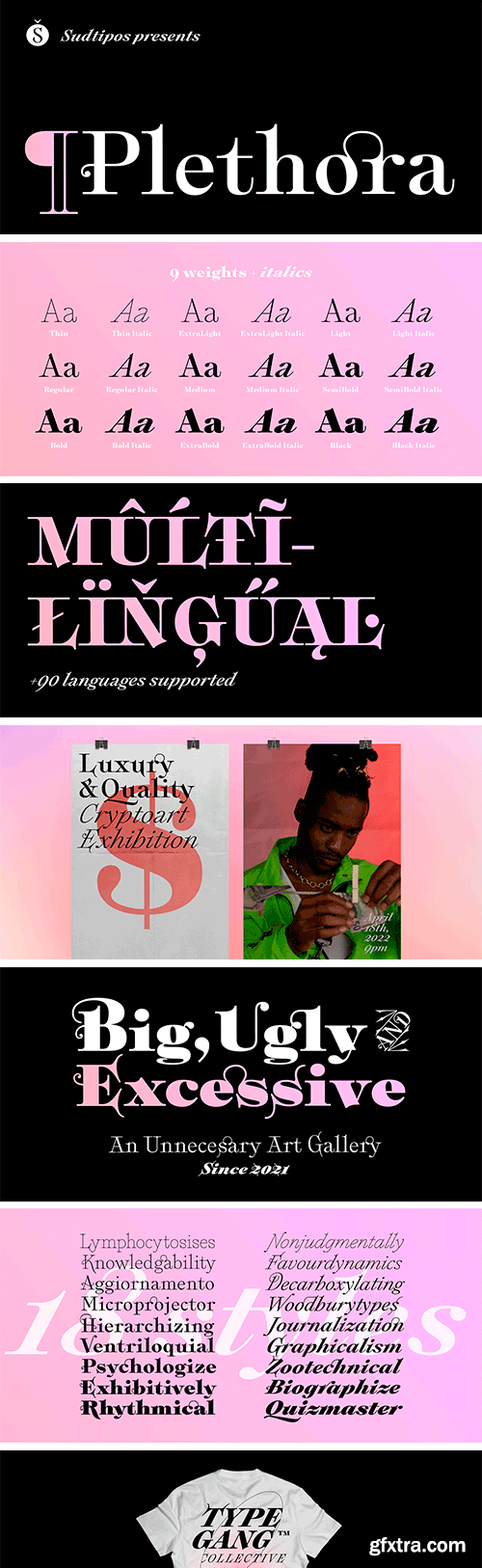
A few years ago I've discovered the work of one of the most prolific typeface designers of the Bruce type Foundry in NYC during late nineteenth century. Browsing Julius Herriet's work I found a very unique kind of ligatures in his patented "Old Style Ornamented" type design. Some letters were designed with a little top tail that allowed them to connect to each other. After that, I found that he also designed a single italic weight of the same font 7 years later.
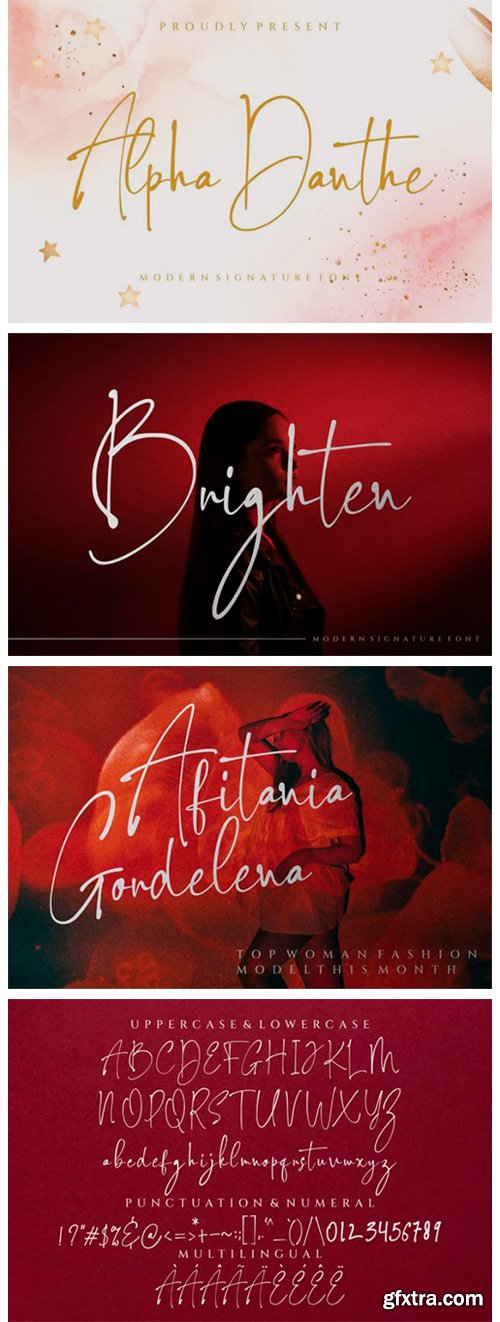
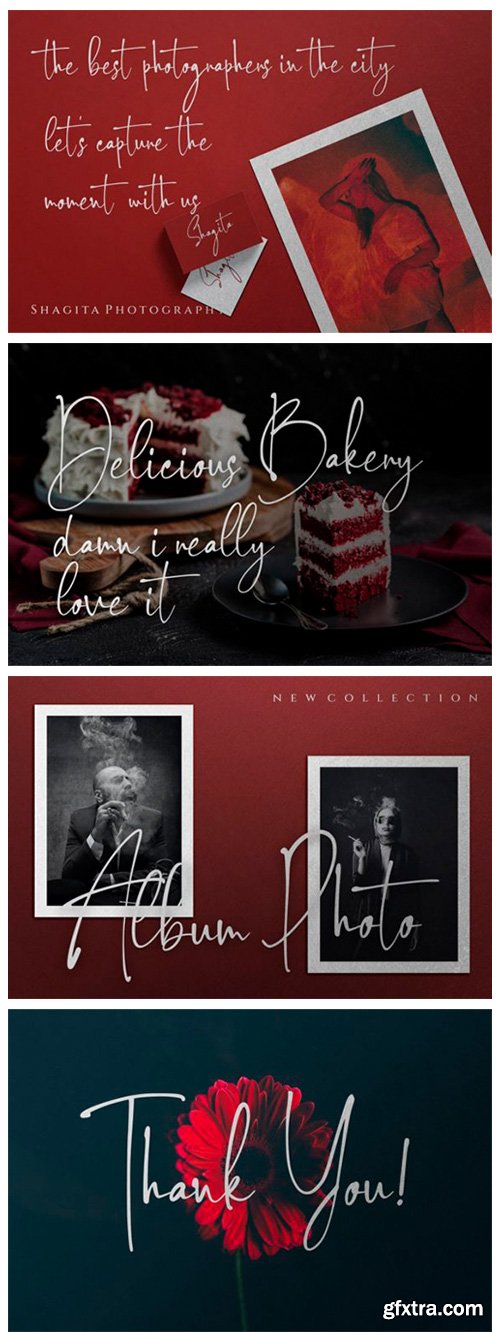
Alpha Danthe Font
Alpha Danthe is a chic, refined script font that emanates sophistication and elegance. Its stylish alternates and ligatures make this font the perfect match for any project.
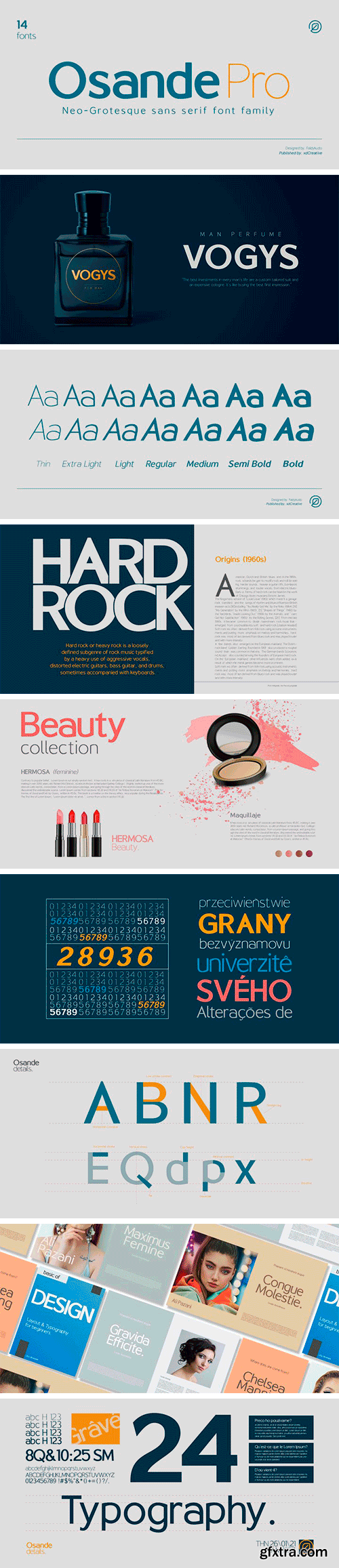
Osande is a modern sans serif font with neo-Grotesque touch, more homogenous forms with minimal stroke contrast. Osande the font family contains 3 basic forms: italics, obliques, and upright. Each of which has 7 different weights ( Thin, Extra Light, Light, Regular, Medium, Semibold, and Bold ). Osande can easily be matched to an incredibly large set of projects, so add it to your creative ideas and notice how it makes them stand out!
Michelin Font
Michelin is a beautiful and delicate script font. It has a classy and modern look, which can be used for logos, branding, invitations, stationary, wedding designs, social media posts and any other design that requires a personalized touch. Michelin is PUA encoded, which means that you can access all glyphs and swashes with ease.
Capricho is a warm, comfy, and pleasantly readable typeface. It unites the virtues of a 17th century transitional typeface with its own distinctive and individual flavour. Its large descenders and ascenders make for a distinguished appearance. The complementary Italics with its gently flowing ductus is the contrasting counterpoint.
Sunwira Font
Sunwira is a lovely, classic and well balanced script font. It can be used for various creations that require a delicate, personalized touch. Sunwira is PUA encoded, which means that you can access all glyphs and swashes with ease!
Nineties Display Font
Nineties - Display Font A display font inspired by the nineties, our favorite decade. A modern font that is both memorable and stylish. This font is suitable for use in many design forms, for example sci-fi scenes, retro gaming, magazines, postcards, logos, DIY Projects, invitation card, quotes and much more.
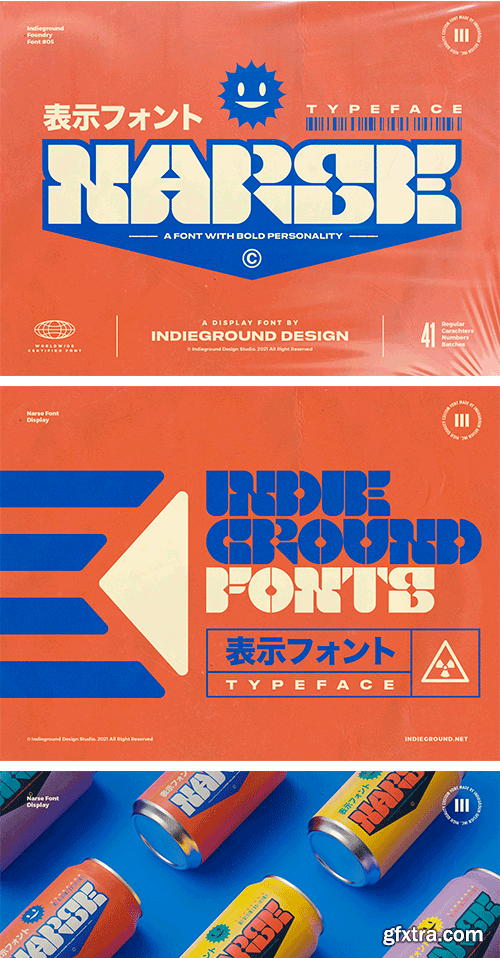
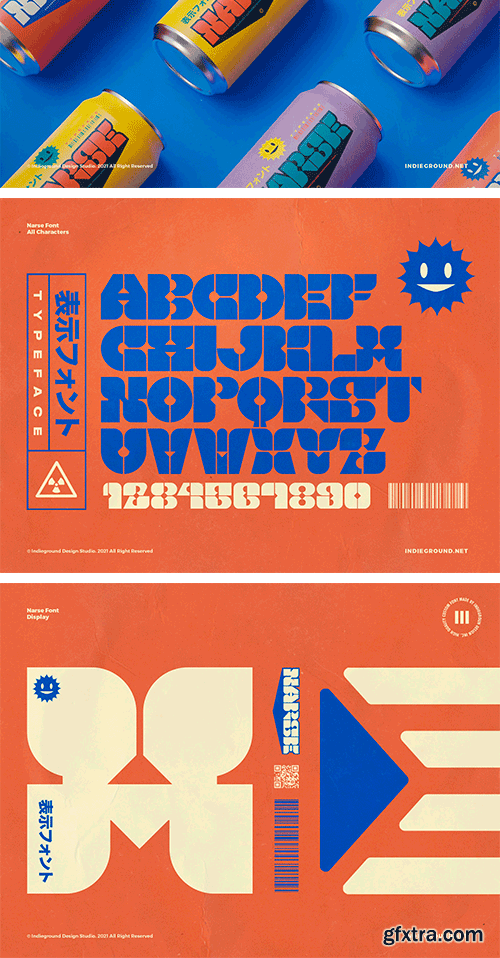
Narse Font
Narse Font by Indieground This unique display font based on a square module, made by the Indieground Team, gives a classic mood with modern styling and boldness to the typography of your artworks. It's inspired by a mix of 70’s Jazz cover-art and contemporary lettering.
Emipon Font
Emipon is a simple and sharp looking display font, that will truly inspire your works. Use this font for your designs and explore its endless possibilities.
Qiyamu Ramadhan Font
Qiyamu Ramadhan is a lovely and unique, Arabic art inspired script font. Add this cursive and delicate looking font to your creations, and they will instantly stand out.
Regattia Font
Regattia is a contemporary fat display didone suitable for big headlines in magazines, websites and posters. Use it for logos, packaging, branding or huge signs on your favourite restaurant.
Introducing by Balpirick Studio.
Proudly Present, Backhome Font.
Backhome is a Modern Handdrawn Font.
Backhome is perfect for product packaging, branding project, megazine, social media, wedding, or just used to express words above the background.
Merijola is a fresh and bold script font with a lot of personalities. It’s cute and bold, This will give a beautiful impression that stands out for your designs. Merijola makes a friendly feel to any design project! This font is PUA encoded which means you can access all of the cute glyphs with ease! It also features a wealth of including ligatures
Hertina designed With High Detail To Bring Stylish Elegance. this font is for those who are in need of an elegant and appropriately modern calligraphy script. that are also beautiful. ! This font is PUA encoded which means you can access all of the awesome glyphs with ease! It also features a wealth of special features including ligatures, titling and swash.